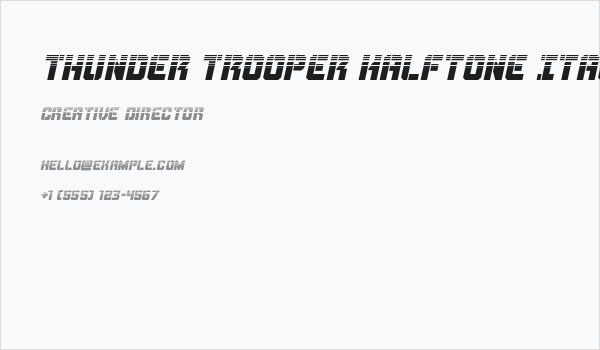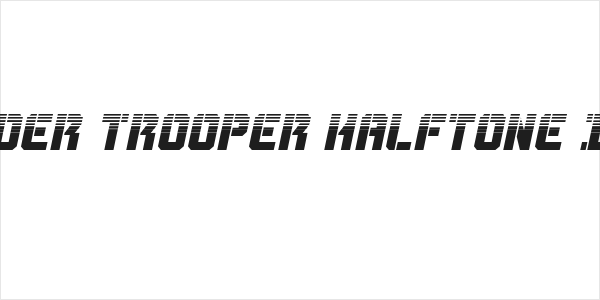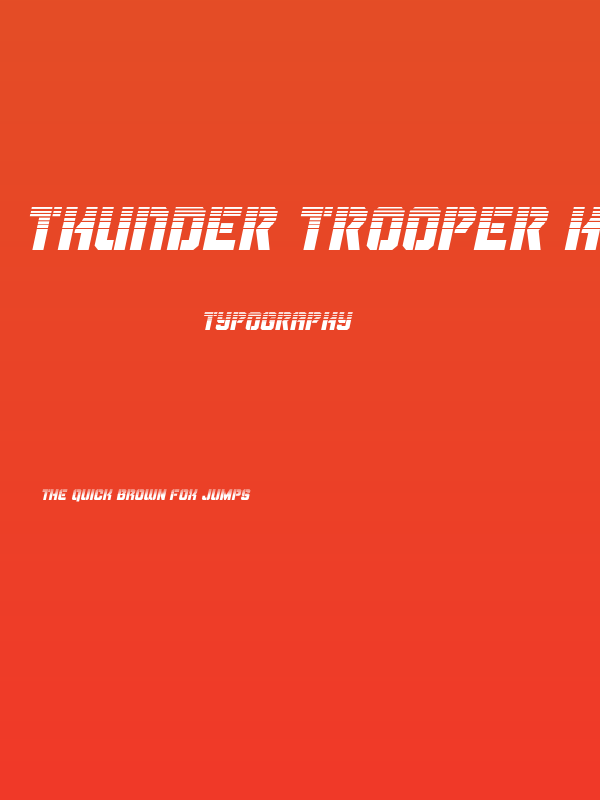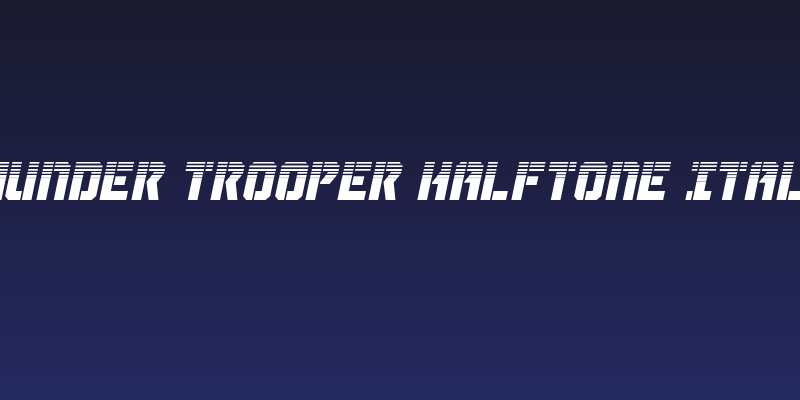
Thunder Trooper Halftone Italic Font
Thunder Trooper Halftone Italic Description
This font features a bold, futuristic design with a halftone effect that gives it a dynamic and energetic appearance. The characters are italicized, adding a sense of motion and speed. The uppercase and lowercase letters are consistent in style, with sharp angles and a blocky structure. The numbers and special characters maintain the same aesthetic, ensuring uniformity across all glyphs. The halftone lines create a unique texture, making it ideal for eye-catching designs.
| Proposed Projects | Ideal for sci-fi themed posters, video game titles, and dynamic branding projects. |